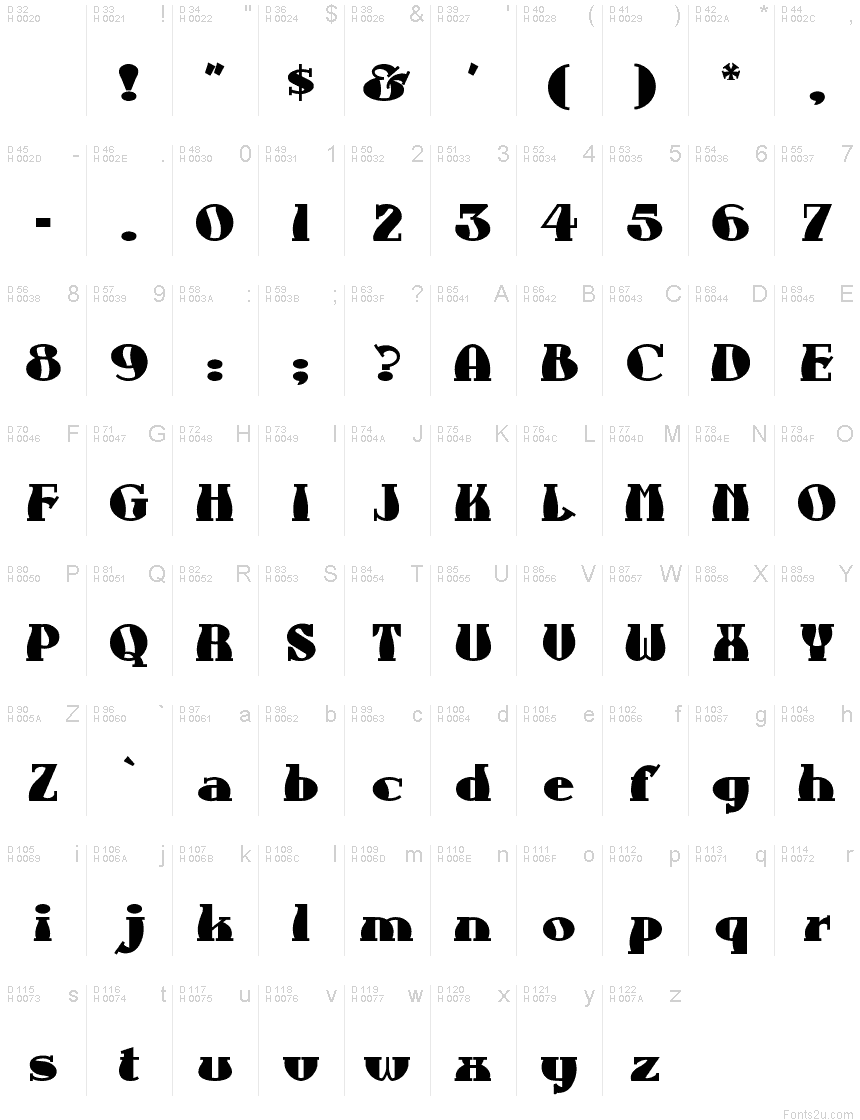
AuntBertha
Aunt Bertha font by Nick Curtis is a free retro display font that feels like a vintage circus poster collided with bold, inky blackletter. Its chunky, tightly packed letters stack into a dark, almost sculpted texture, while the tall arches and quirky curves keep it playful rather than gothic. The rhythm is dense and theatrical, so a single word or short phrase in AuntBertha instantly becomes a loud, attention-grabbing graphic element.
Using AuntBertha, headlines feel stamped, shouted, and a little mischievous-great for posters, beer or soda labels, book covers, event branding, packaging, and retro-themed logos. This free font shines at large sizes, where its thick strokes and tight forms can really crowd the page in a good way. Pair AuntBertha with a clean, neutral sans serif in smaller text to keep everything readable while letting the retro drama take center stage.